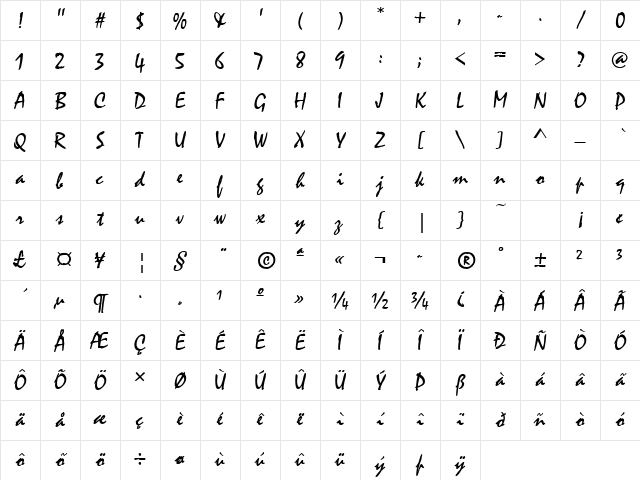
MistralJoiT Regular
Design Context for MistralJoiT
MistralJoiT is a composed and adaptable typeface that performs quietly and consistently across a wide range of design contexts.